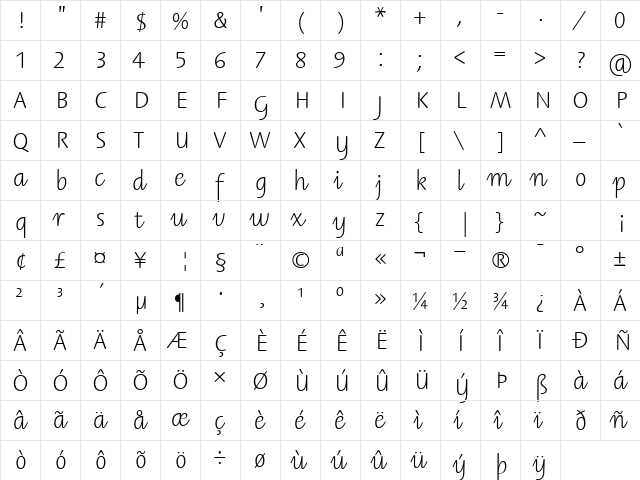
ABC Schrift Drei EF Regular
Design Context for ABC Schrift Drei EF Typeface
ABC Schrift Drei EF is a composed and adaptable typeface that performs quietly and consistently across a wide range of design contexts.